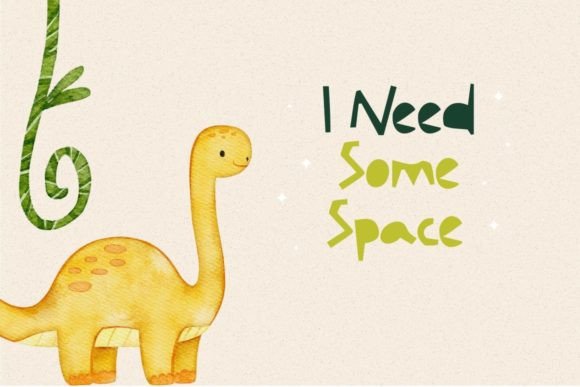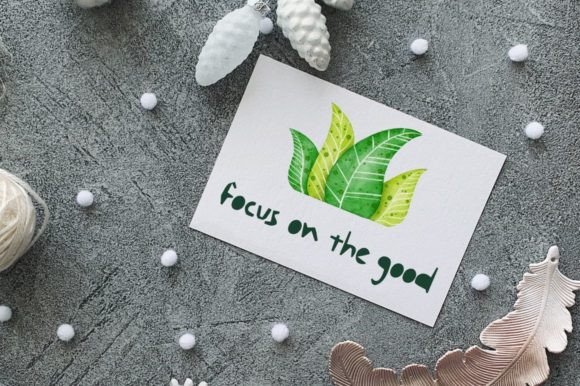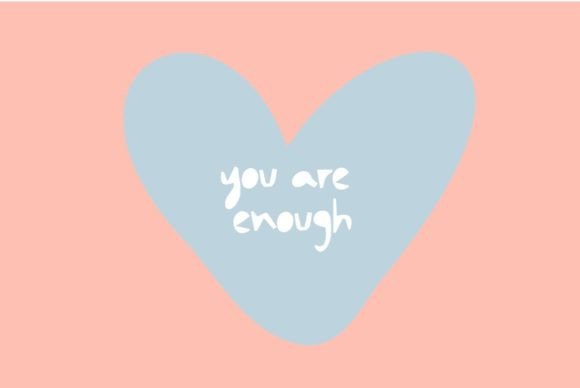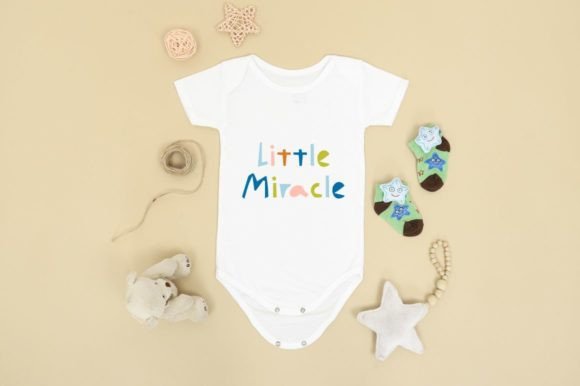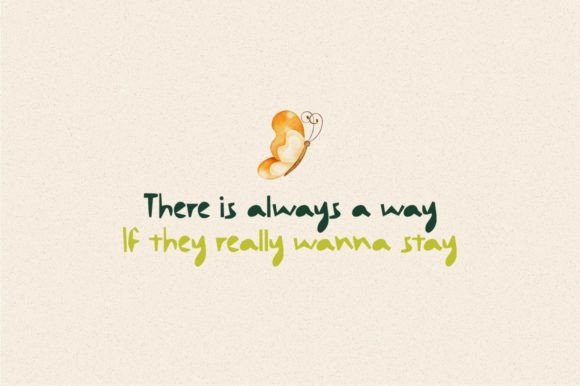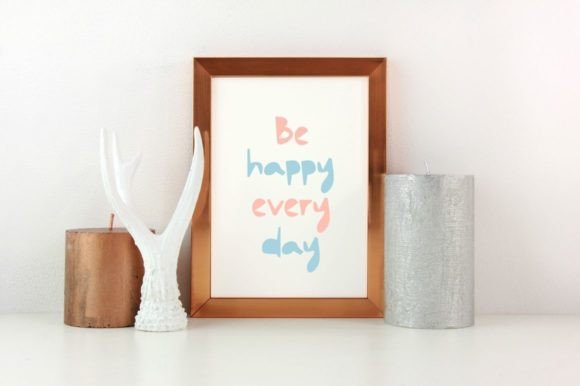
Dino Smile Font: Add a Playful Touch to Your Designs
Are you looking for a font that can add a playful and whimsical touch to your designs? Look no further than the Dino Smile Font! This delightful handwritten typeface is perfect for a wide range of projects, from headings and logotypes to book covers and apparel designs. In this article, we’ll take a closer look at the Dino Smile Font and explore its features, benefits, and uses.
What is Dino Smile Font?
Dino Smile Font is a playful handwritten typeface that is designed to bring a smile to your face. Its unique, sweet, and lovely design makes it perfect for adding a touch of whimsy to your projects. The font is highly legible and versatile, making it suitable for a wide range of applications, from digital designs to print materials.
Features of Dino Smile Font
The Dino Smile Font has several features that make it stand out from other fonts. Some of its key features include:
- Playful design: The font has a playful and whimsical design that is sure to add a touch of fun to your projects.
- Handwritten style: The font has a handwritten style that gives it a personal and unique touch.
- Highly legible: The font is highly legible, making it easy to read and understand.
- Versatile: The font is versatile and can be used for a wide range of projects, from digital designs to print materials.
Uses of Dino Smile Font
The Dino Smile Font is perfect for a wide range of projects, including:
- Headings and logotypes: The font is perfect for creating headings and logotypes that are bold and eye-catching.
- Book covers: The font is ideal for book covers, especially for children’s books and young adult fiction.
- Apparel designs: The font can be used to create fun and playful apparel designs, such as t-shirts and mugs.
- Printed quotes: The font is perfect for creating printed quotes that are visually appealing and easy to read.
- Flyers and brochures: The font can be used to create eye-catching flyers and brochures that grab attention.
- Greeting cards: The font is ideal for creating greeting cards that are fun and playful.
Benefits of Using Dino Smile Font
There are several benefits to using the Dino Smile Font in your designs. Some of the key benefits include:
- Adds a playful touch: The font adds a playful and whimsical touch to your designs, making them more visually appealing.
- Increases engagement: The font’s playful design can help increase engagement and interaction with your audience.
- Versatile: The font is versatile and can be used for a wide range of projects, making it a great addition to your font library.
- Easy to read: The font is highly legible, making it easy to read and understand.
Tips for Using Dino Smile Font
Here are some tips for using the Dino Smile Font in your designs:
- Use it for headings: The font is perfect for headings and titles, so use it to add a playful touch to your designs.
- Experiment with colors: The font looks great in a variety of colors, so experiment with different colors to find the one that works best for your design.
- Pair it with other fonts: The font can be paired with other fonts to create a unique and visually appealing design.
- Use it for digital designs: The font is perfect for digital designs, such as social media graphics and website headers.
In conclusion, the Dino Smile Font is a playful and versatile font that is perfect for adding a touch of whimsy to your designs. Its unique design, high legibility, and versatility make it suitable for a wide range of projects, from headings and logotypes to book covers and apparel designs. Whether you’re a designer or a crafter, the Dino Smile Font is a great addition to your font library.